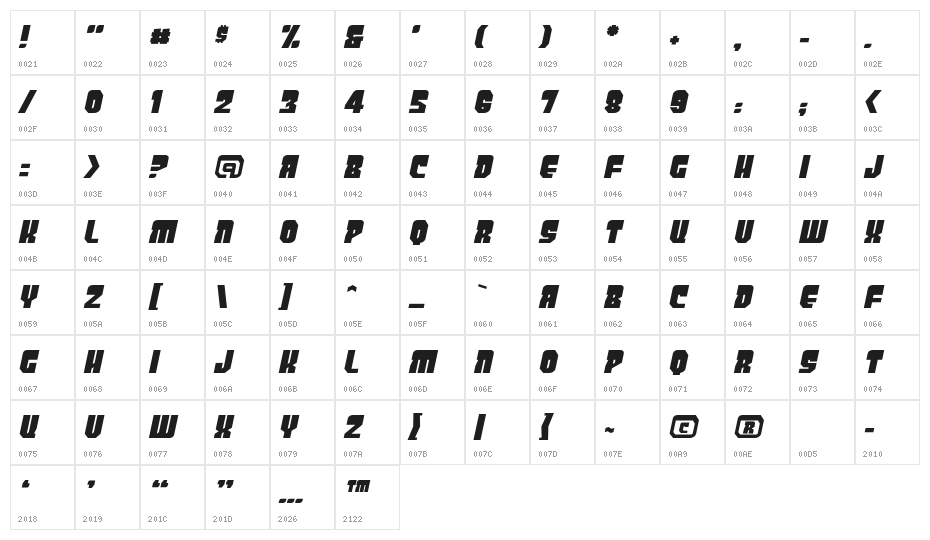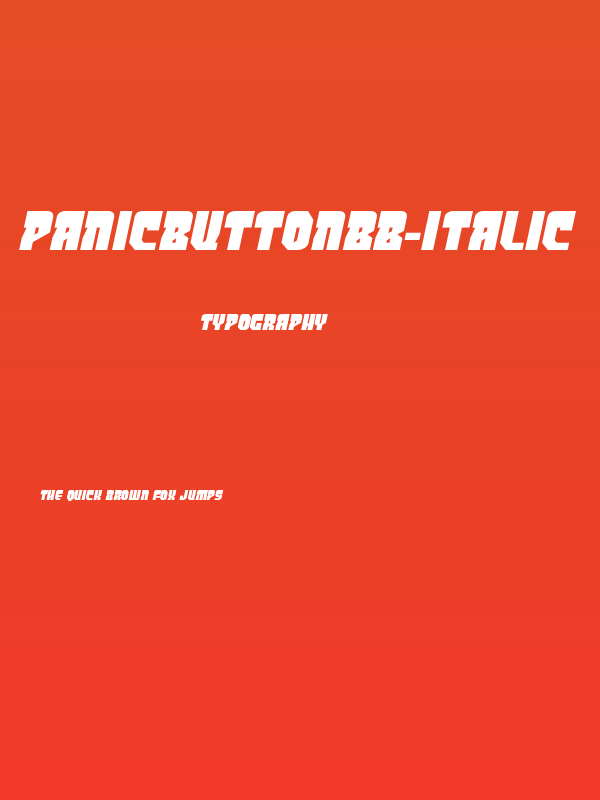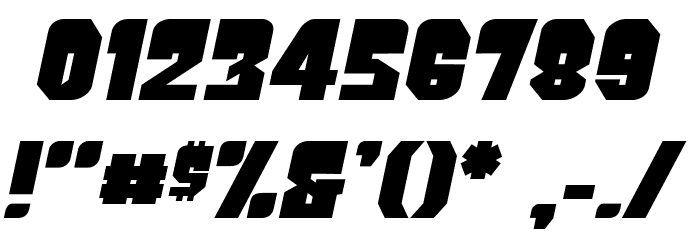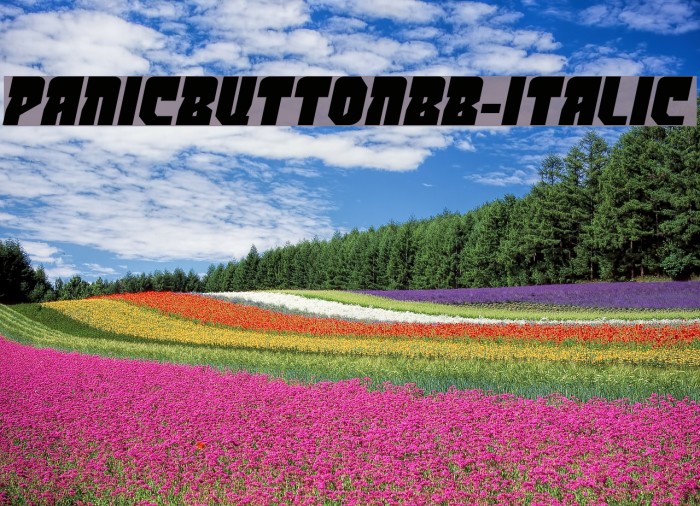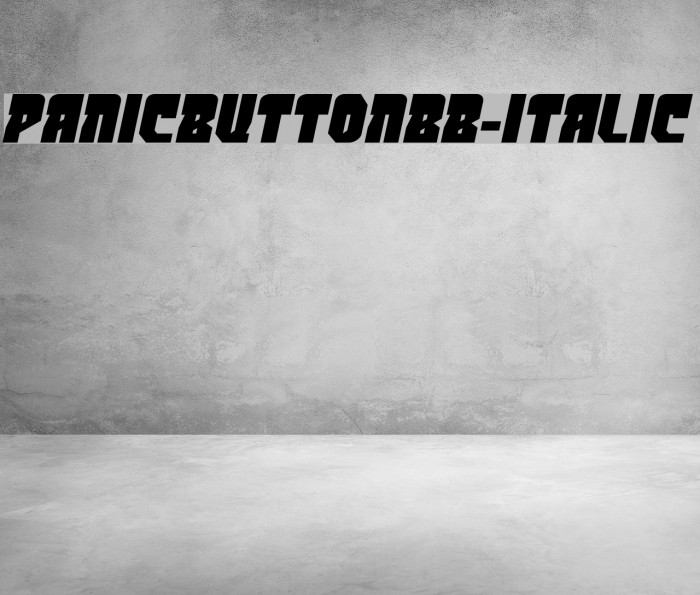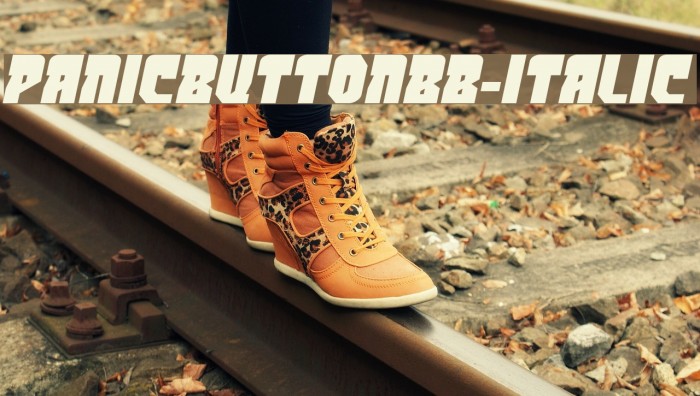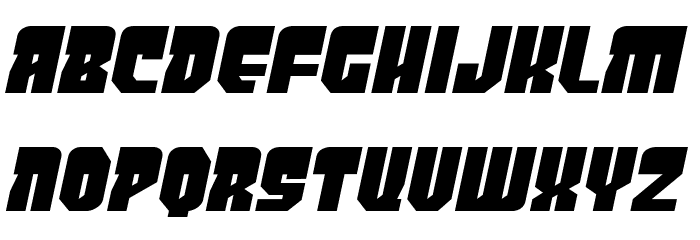
PanicButtonBB-Italic Font
PanicButtonBB-Italic Description
This bold and dynamic font features a strong, angular design with a distinct italic slant, giving it a sense of urgency and movement. The characters are wide and blocky, with sharp edges and a futuristic aesthetic. The uppercase and lowercase letters maintain a consistent style, while the numbers and special characters are equally bold and impactful. The font's thick strokes and geometric shapes make it highly legible and attention-grabbing, suitable for projects that require a powerful visual presence.
| Proposed Projects | Ideal for video game titles, action movie posters, sports branding, and dynamic advertising campaigns. |